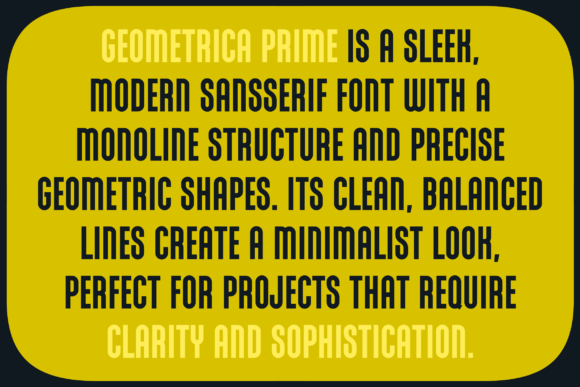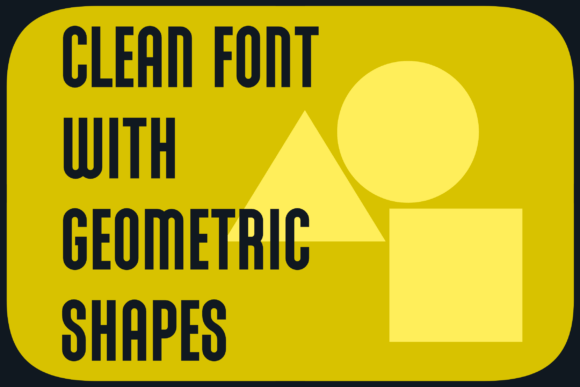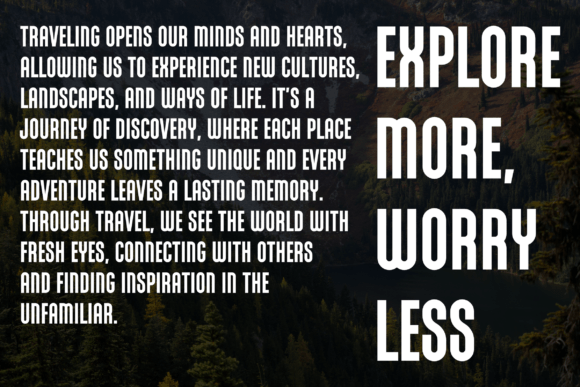
Introduction to Geometrica Prime Font
Geometrica Prime is a refined monoline sans serif font that embodies modern minimalism.
Its geometric shapes and consistent line weight create a harmonious balance, offering a clean, structured appearance Perfect for contemporary designs, this font brings clarity and sophistication to a wide range of applications, from branding and editorial work to digital interfaces.